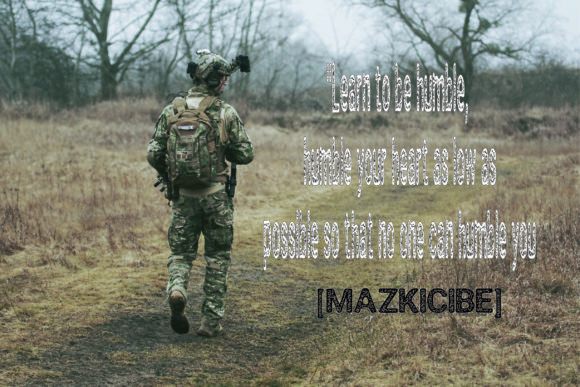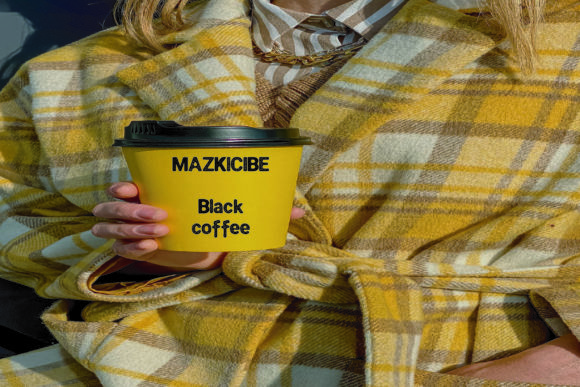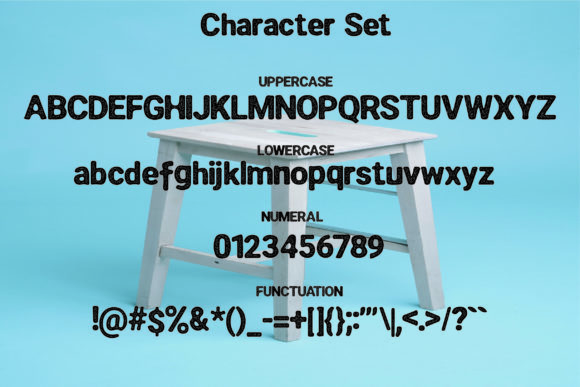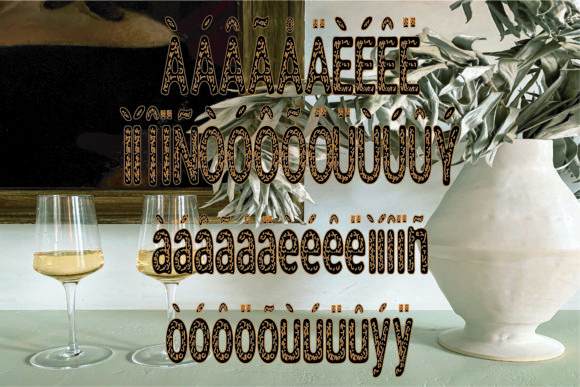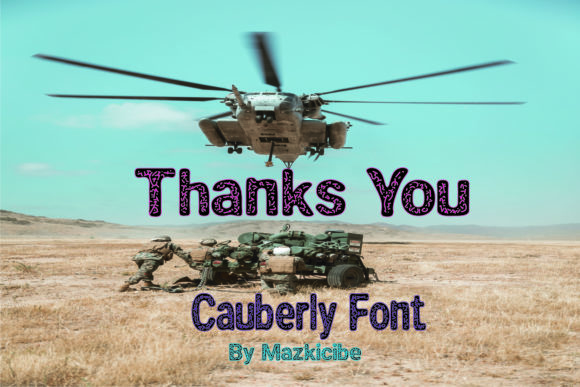
Unleash the Power of Discreet Elegance with the Cauberly Font
Have you ever stared at a blank page, waiting for the perfect idea to strike? It’s that moment of creative spark that we all chase, and for designers, it’s the key to unlocking a truly exceptional piece of work. For me, it was a rainy afternoon, surrounded by sketches and scraps of paper, when the Cauberly Font first came to life.
The Cauberly Font is a modern and decorative typeface, designed to make every word you write more eye-catching. With its unique blend of elegance and stealth, it’s perfect for social media posts, branding, merchandise, posters, comics, and display work. But what sets it apart is its inspiration – the clothes of soldiers who are brave and able to hide without being detected. This font is a reflection of their spirit: bold, yet subtle, and always ready to make an impact.
- Font Family: Cauberly Font is a modern sans-serif typeface designed for digital use.
- Unique Characteristics: Cauberly Font features a clean and minimalist design, with subtle rounded edges and an open feel that makes it highly legible in digital environments.
Overall, I’m impressed with Cauberly Font’s unique style and versatility. ✨ The font’s bold, geometric lines give it a modern and edgy feel that’s perfect for headlines and titles. I appreciate how Cauberly Font is available in various weights and styles, making it easy to experiment with different looks and moods.
- Cauberly Font’s clean lines and modern aesthetic make it a great choice for contemporary designs.
- The font’s adaptability to various styles and weights is impressive, offering endless creative possibilities.
- Cauberly Font is well-suited for digital use, as it’s clear and legible even at small font sizes.
However, there are a few areas where Cauberly Font falls short. ⚠️ The font’s limited language support is a significant drawback, as it may not be suitable for projects requiring multilingual content. Additionally, the font’s high contrast may not be ideal for projects with dark backgrounds, as it can be difficult to read.
Overall, I think Cauberly Font is a solid choice for designers looking for a modern, edgy font. While it has its limitations, the font’s unique style and versatility make it a great addition to any design toolkit.
The Cauberly Font is perfect for creating elegant and refined designs, such as:
– Wedding invitations
– Luxury branding
– High-end marketing materials
– Fine art prints
– Any design where a touch of sophistication and elegance is desired.
Playfair Display is an elegant and luxurious serif font ideal for formal and high-end designs. It’s perfect for titles, headings, and luxury branding.
Compared to Cauberly Font, Playfair Display is more formal and luxurious, with a more classical feel. While Cauberly Font has a more modern and sleek look, Playfair Display exudes sophistication and refinement.
Great Vibes is a modern and elegant script font suitable for creative and artistic designs. It’s ideal for headings, titles, and branding that requires a touch of sophistication.